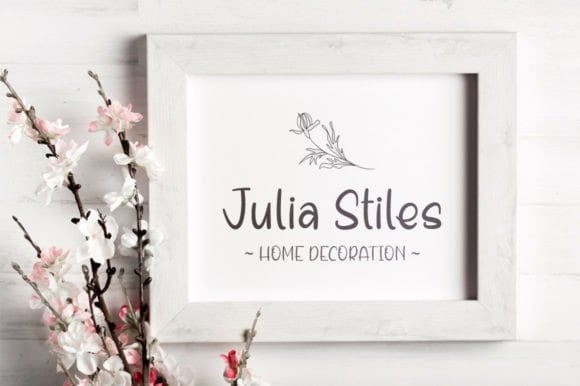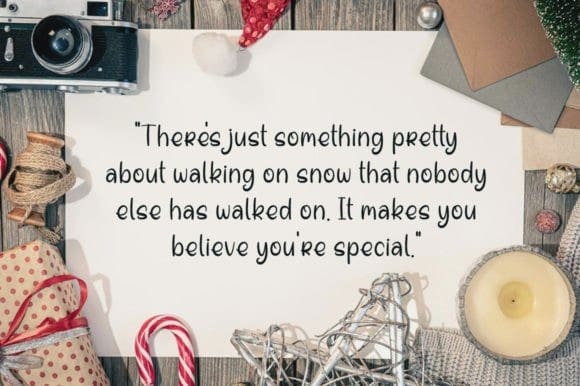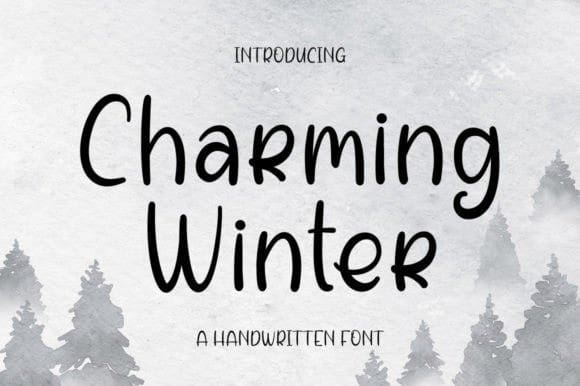
Charming Winter Font
Charming Winter Font is a fun and smart-looking handwritten font. It looks great on invitations, thank you cards, quotes, greeting cards, logos, business cards, and every other design which needs a casual touch.